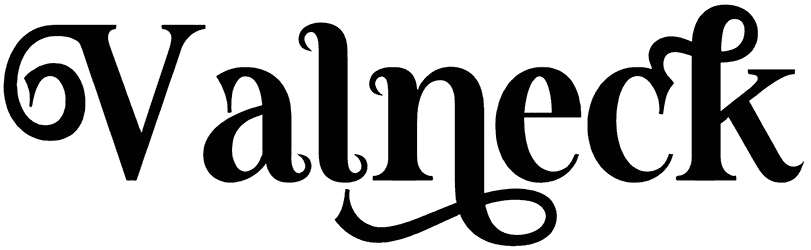
Valneck Font
If you want to make your words sound magical, you shouldn’t miss Valneck. Designed as a swirly font and with pointy serifs, it has what it takes to set a fantasy theme in your lettering and attract attention to itself.
To get you started, try adding this serif font to your movie posters, Halloween party banners, packaging of your cosmetic products, or anything else. It keeps things fun but also conveys your message in its stylish manner and dreamy tone.